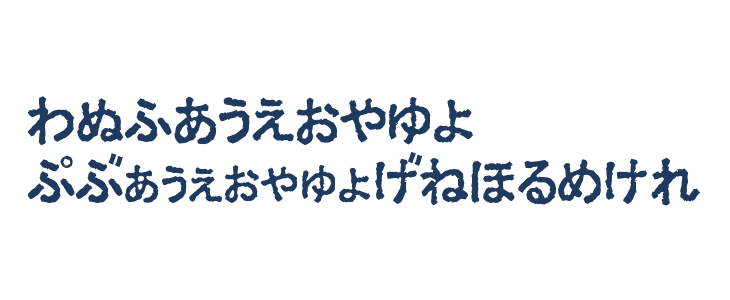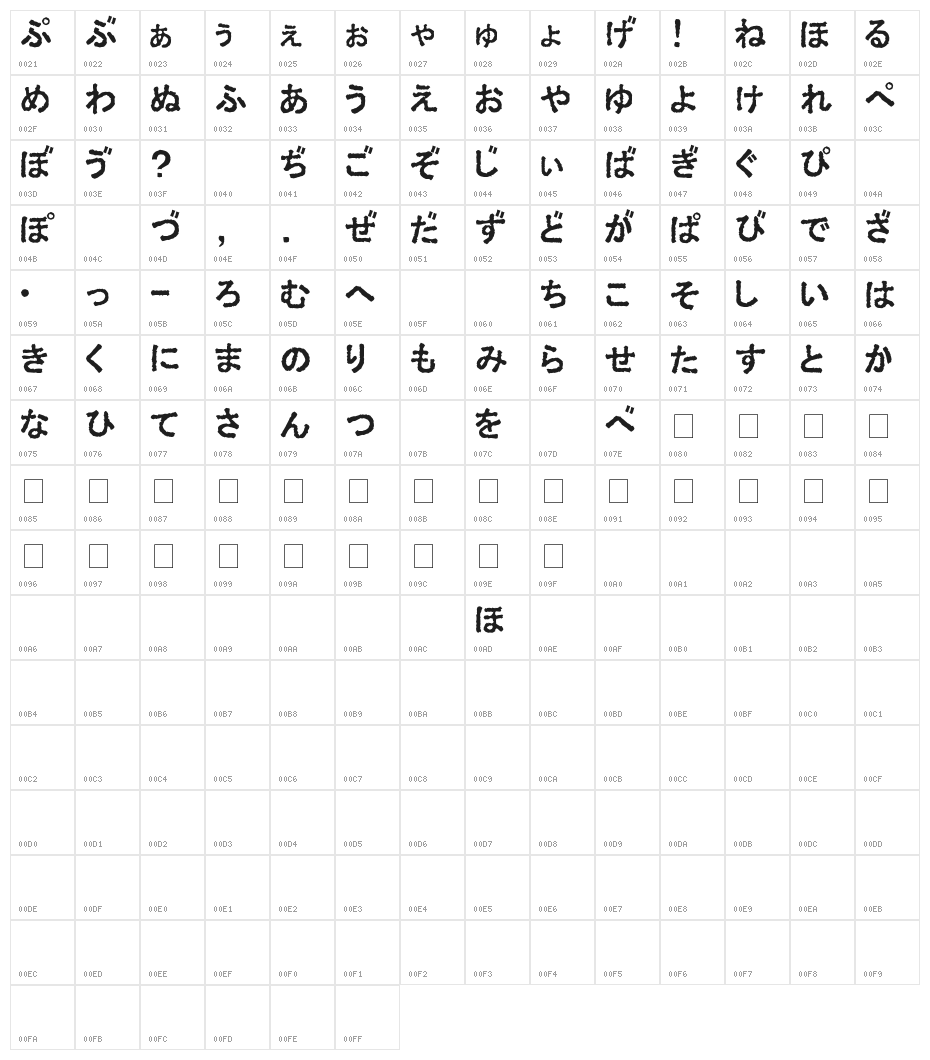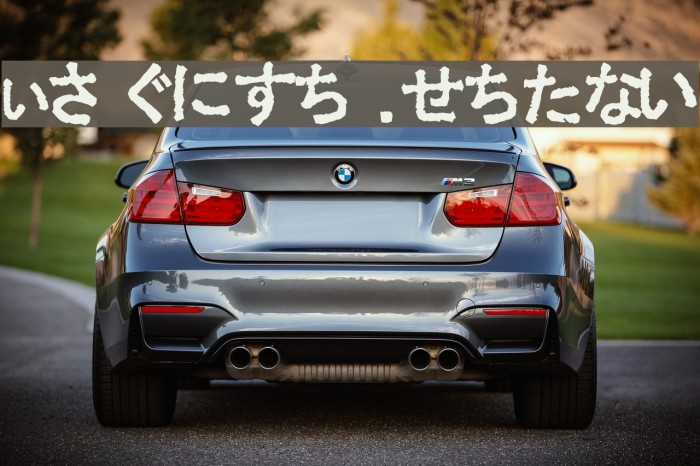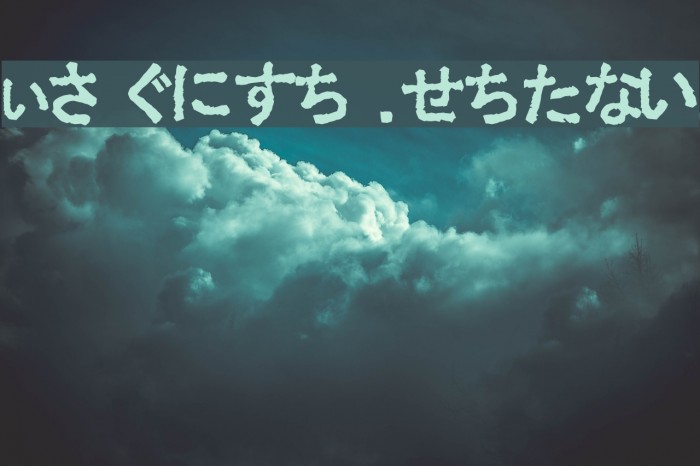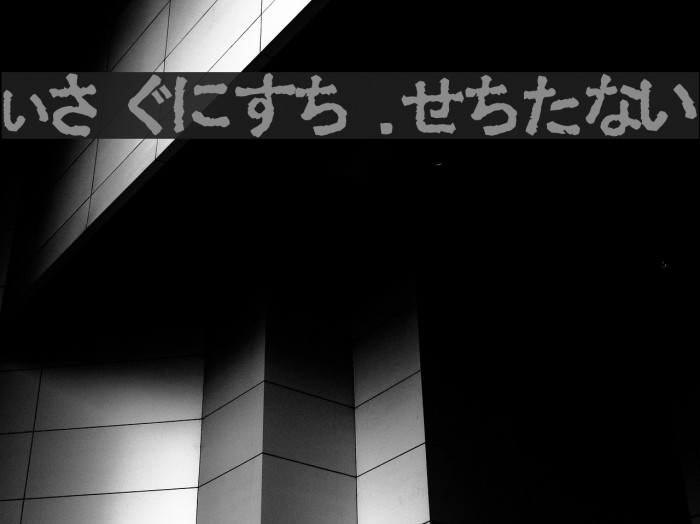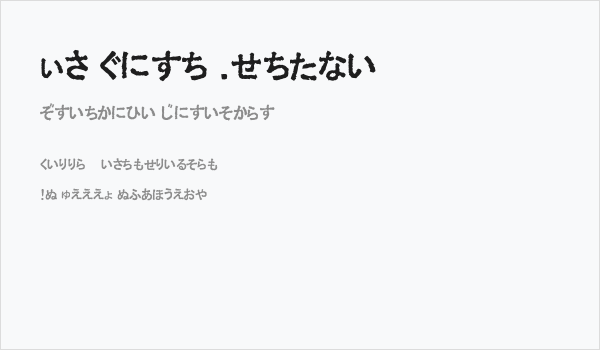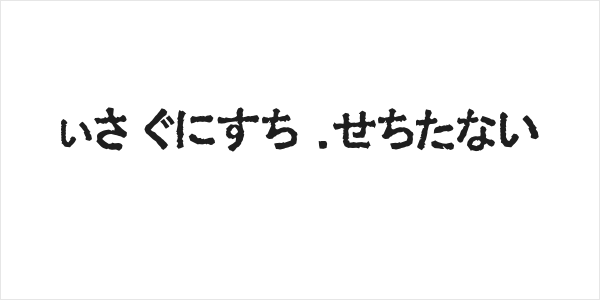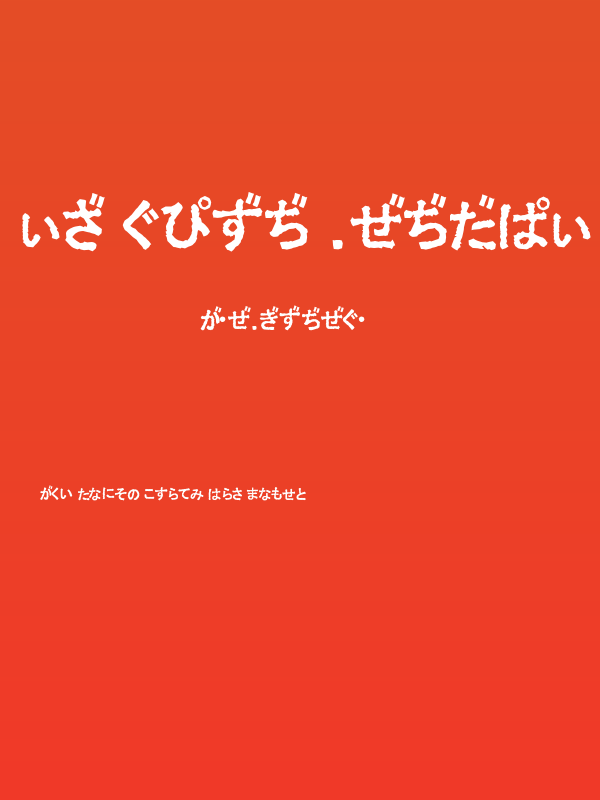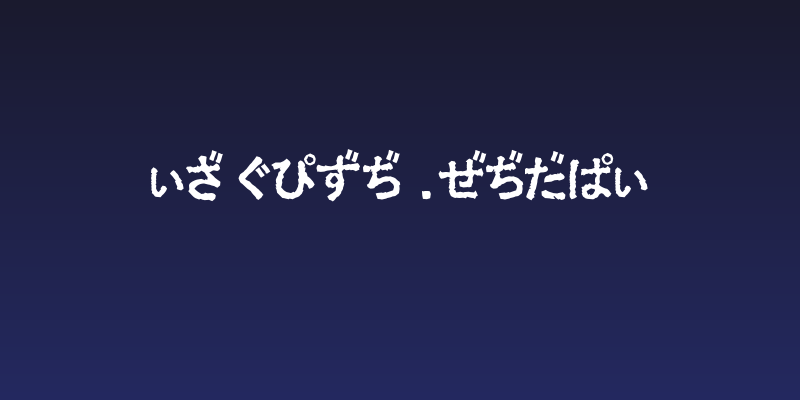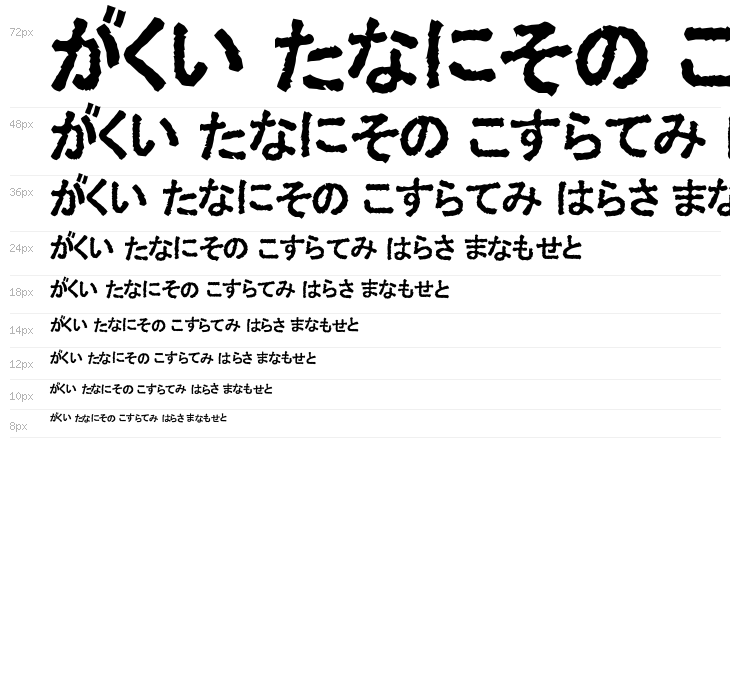
Ex Hira Opaque Font
Ex Hira Opaque Description
This font features a bold and textured appearance, reminiscent of traditional Japanese calligraphy. The characters are robust and have a hand-drawn quality, with irregular edges that give them a dynamic and organic feel. The strokes are thick and expressive, conveying a sense of movement and fluidity. This style is particularly effective in capturing an authentic and cultural aesthetic, making it suitable for projects that aim to evoke a sense of tradition and artistry. The font's unique texture adds depth and character, making it stand out in both digital and print mediums.
| Overall Style | Traditional, Artistic |
| Use Case | Logos, Posters, Artistic Projects |
| Proposed Projects | Ideal for cultural projects, artistic designs, branding with a traditional touch, and decorative purposes. |